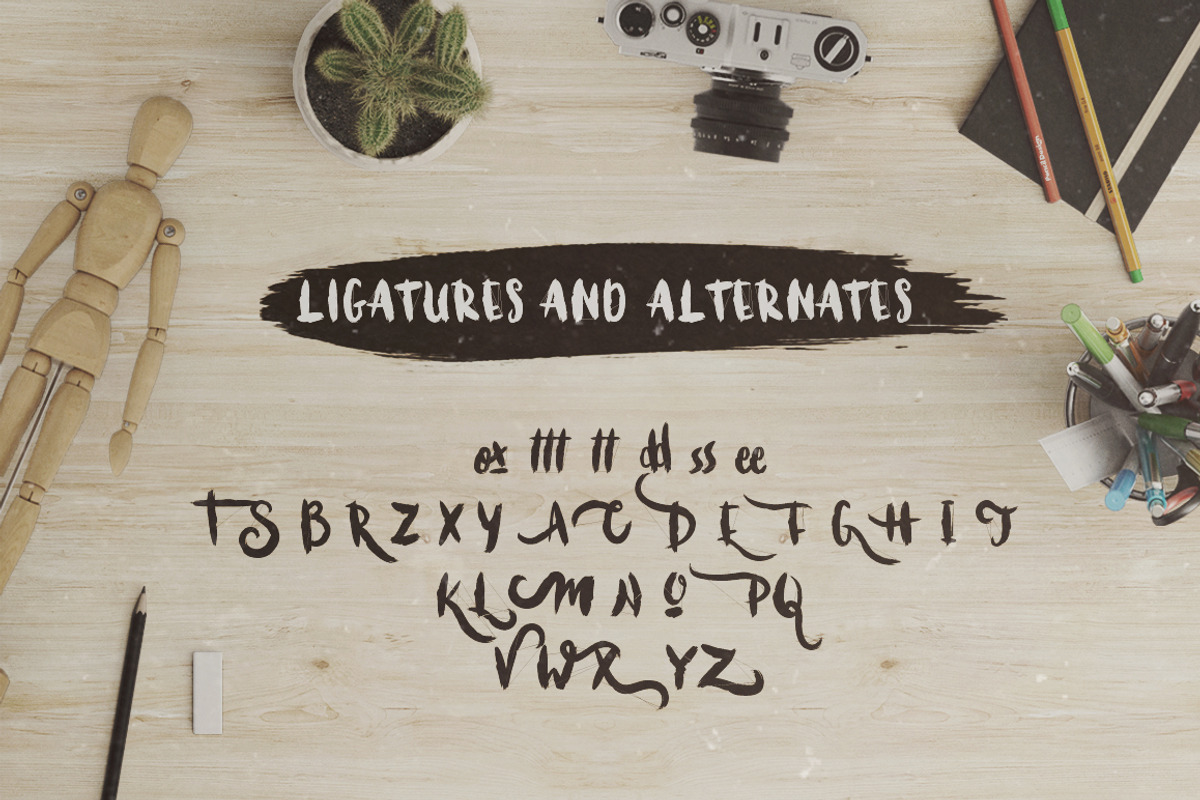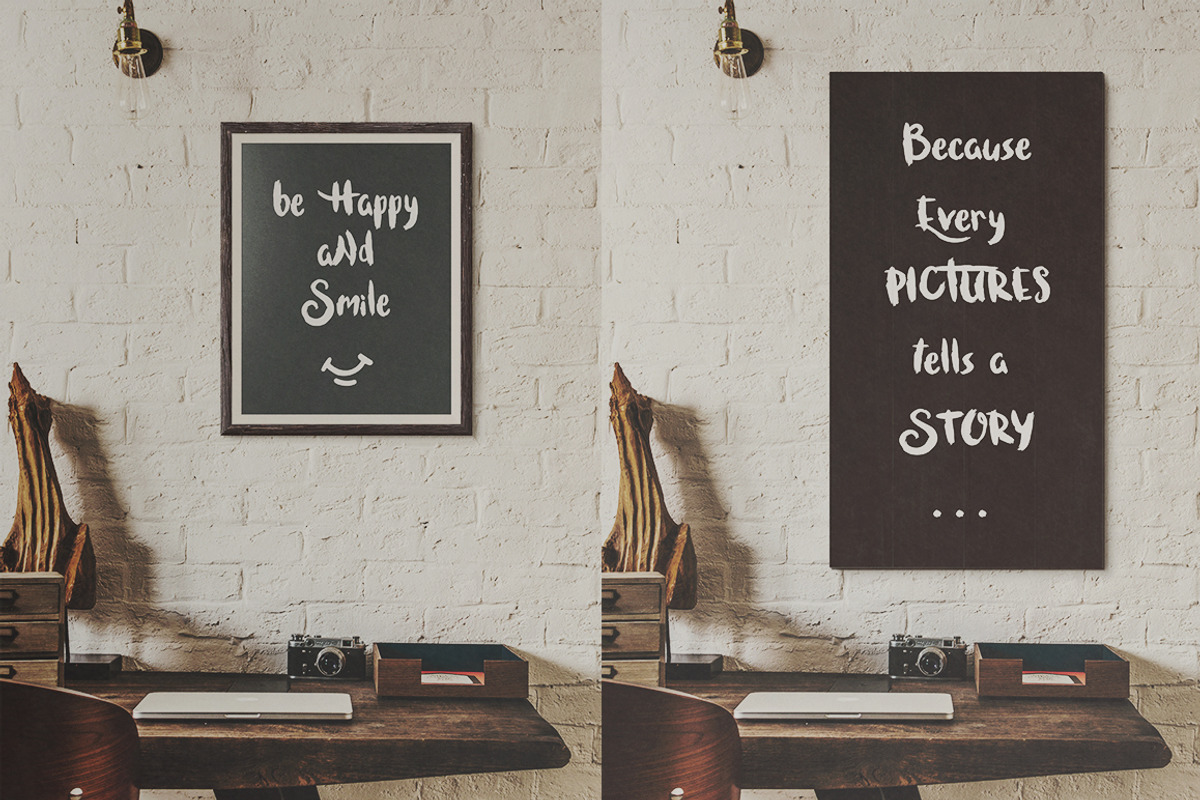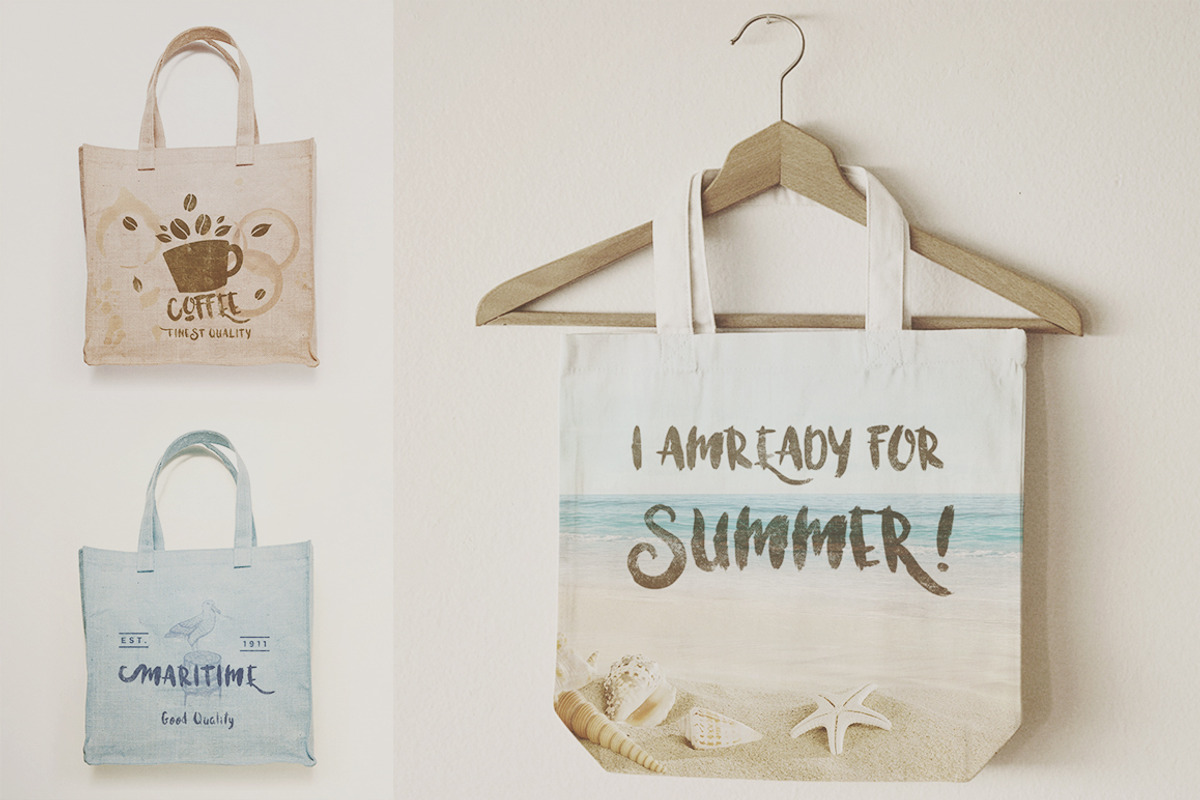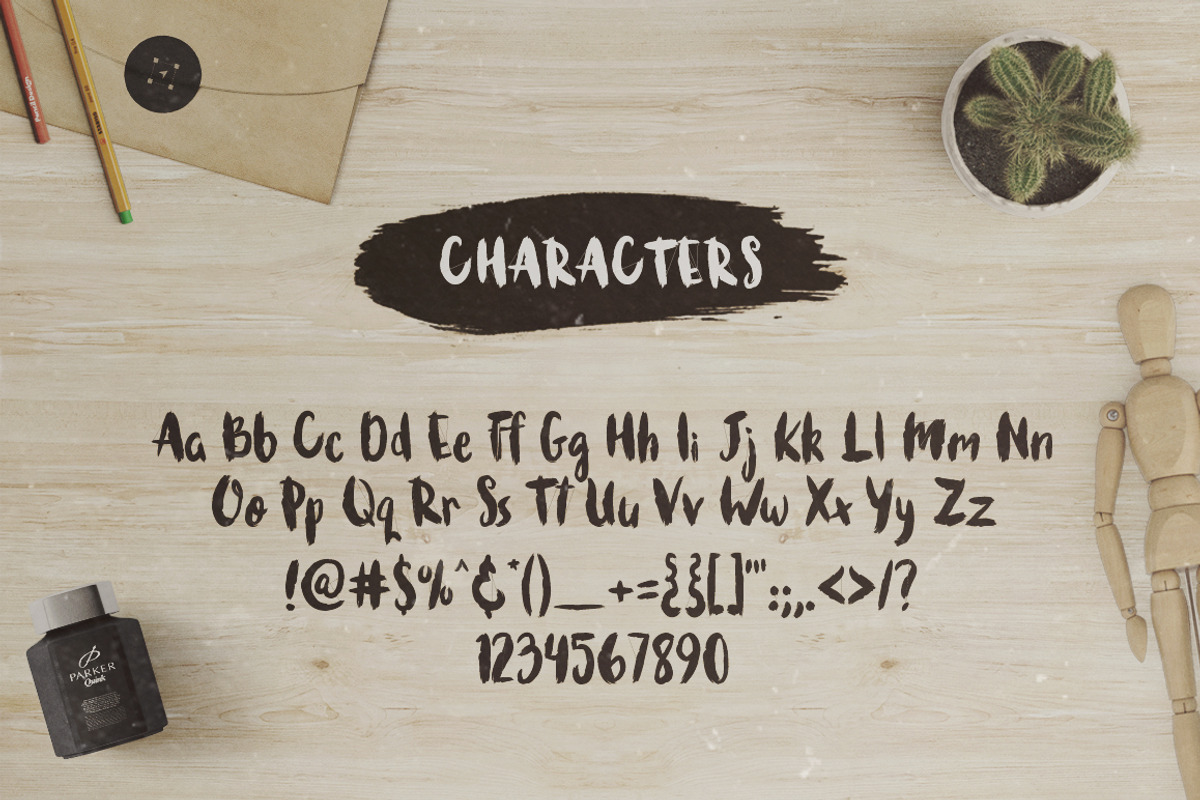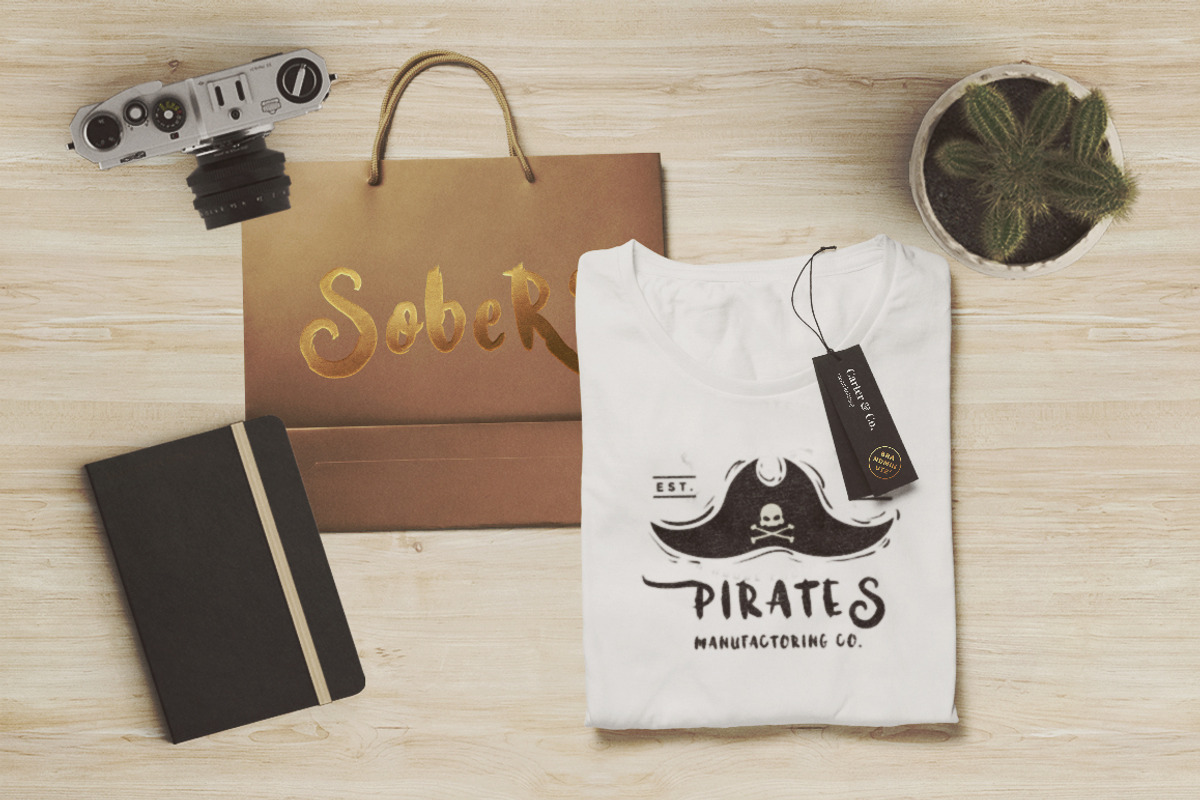
Bruscheetah Brush Font
Bruscheetah Brush Font by TGIF.STD is a font selected for branding, posters, packaging, typography.
- Uppercase, Lowercase, Numerals, Punctuations, Ligatures and Stylistic Alternates.
Why Bruscheetah Brush Font is worth a look
Bruscheetah Brush Font by TGIF.STD fits naturally into Branding, posters, packaging, typography.